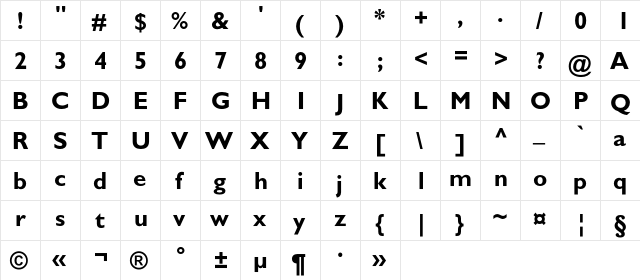
AZGillSansC Bold
Design Context for AZGillSansC Typeface
AZGillSansC takes a measured approach to typography — its balanced proportions and neutral character make it a reliable workhorse for both digital and print work. The heavy weight commands attention and anchors typographic hierarchies.